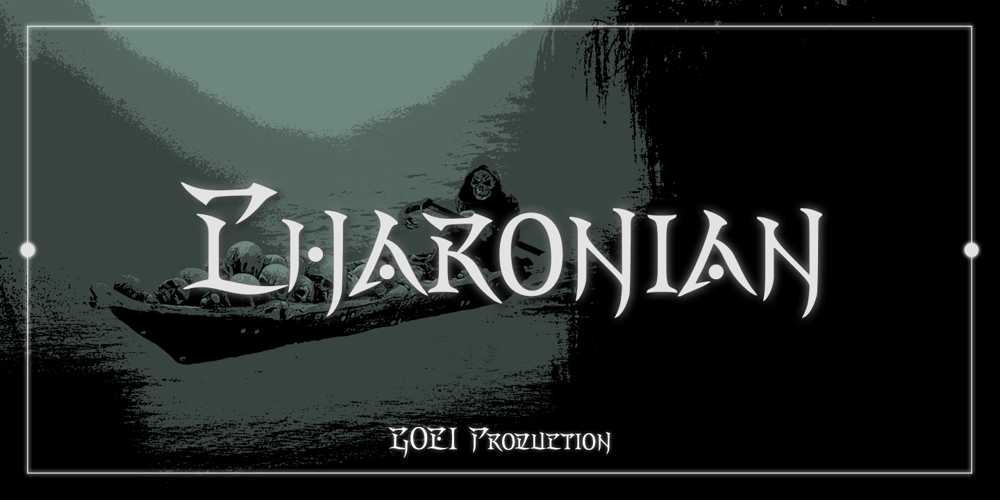
Charonian Font Family was designed by Inmyo Jeong and published by Goei. Charonian contains 2 styles and family package options. Typeface Charonian applied the Korean serif style to Latin serif, experiment how both styles can be put together.The output turned out to be very interesting, which has unique and exotic aura.We, the foundry of GOEI Production proudly release this font as our official fontas GOEI originally strarted from a small occult club.Charonian 101 : Original version of the typefaceCharonian 102 : Advanced version for better readability